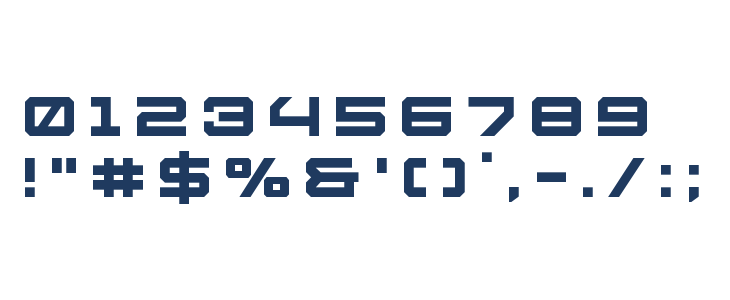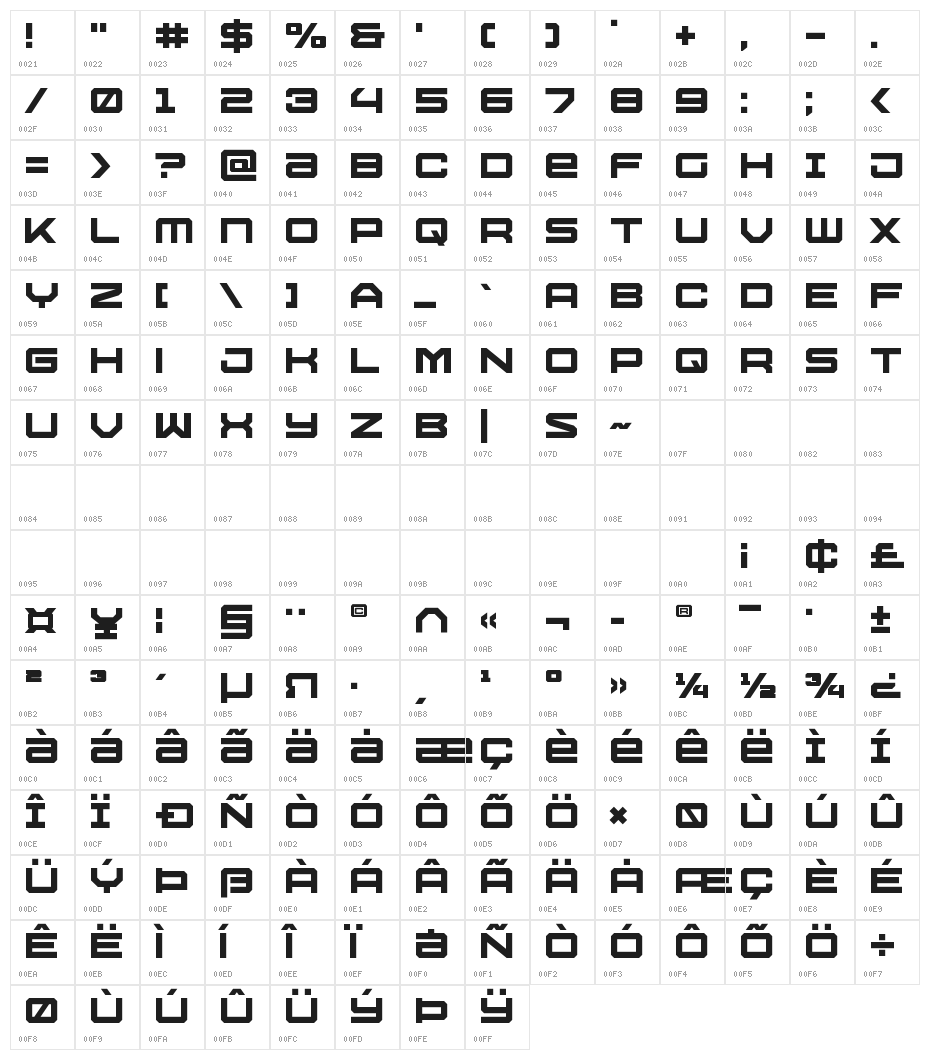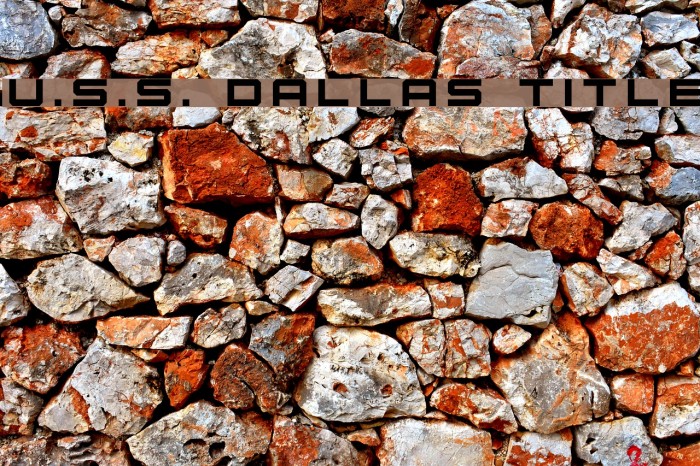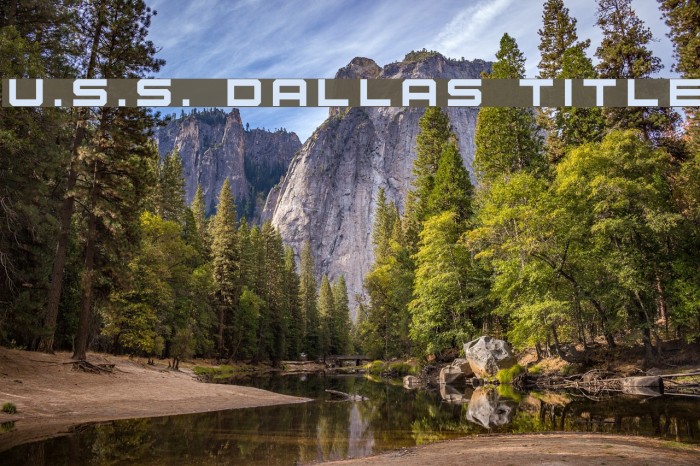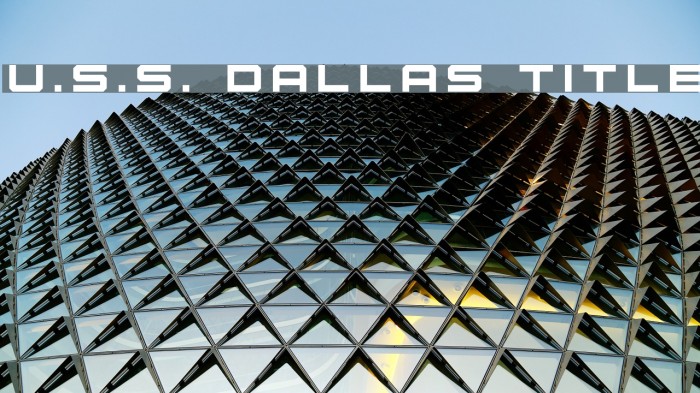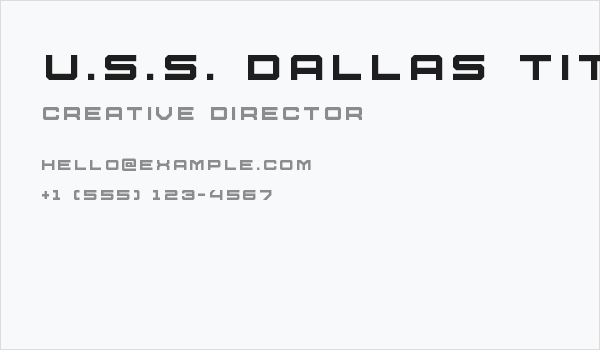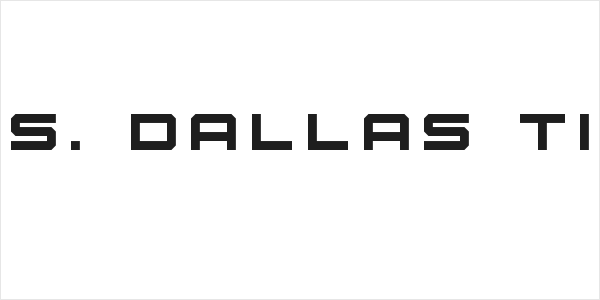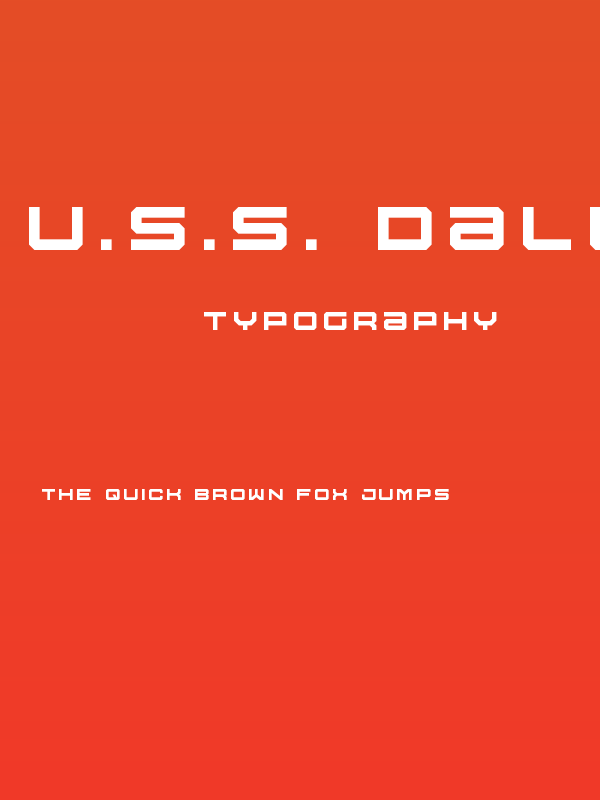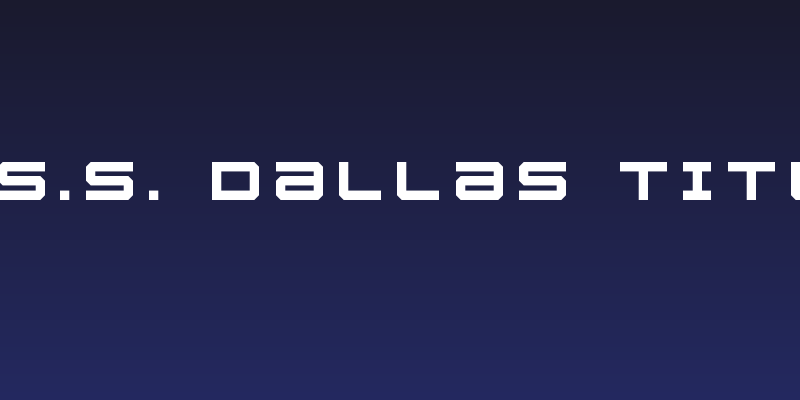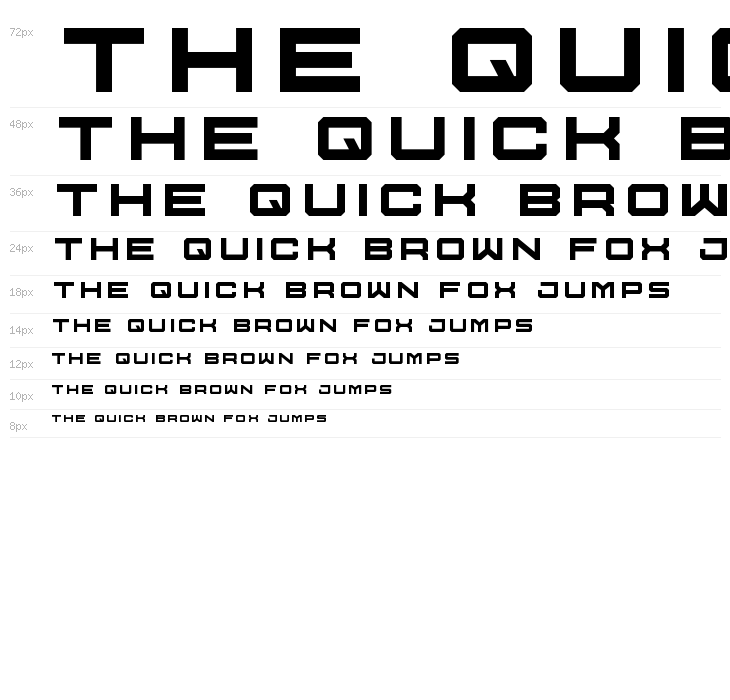
U.S.S. Dallas Title Font
U.S.S. Dallas Title Description
This font features a bold, geometric design with a futuristic and industrial feel. The characters are constructed with straight lines and sharp angles, giving it a mechanical and modern appearance. The uppercase and lowercase letters maintain a consistent style, with the lowercase being slightly smaller but equally bold. The numerals are distinct and easy to read, following the same geometric pattern. Special characters are included, matching the overall aesthetic. The font's uniformity and strong presence make it suitable for impactful designs.